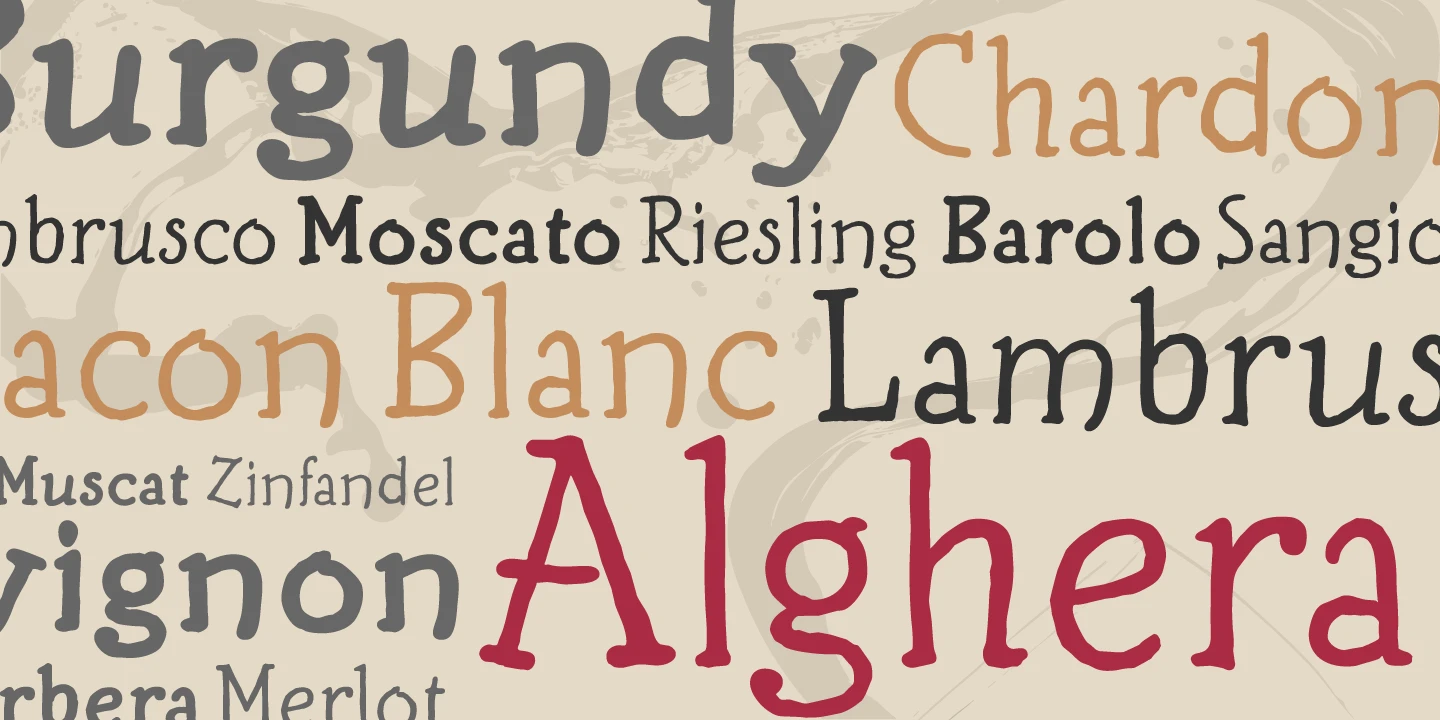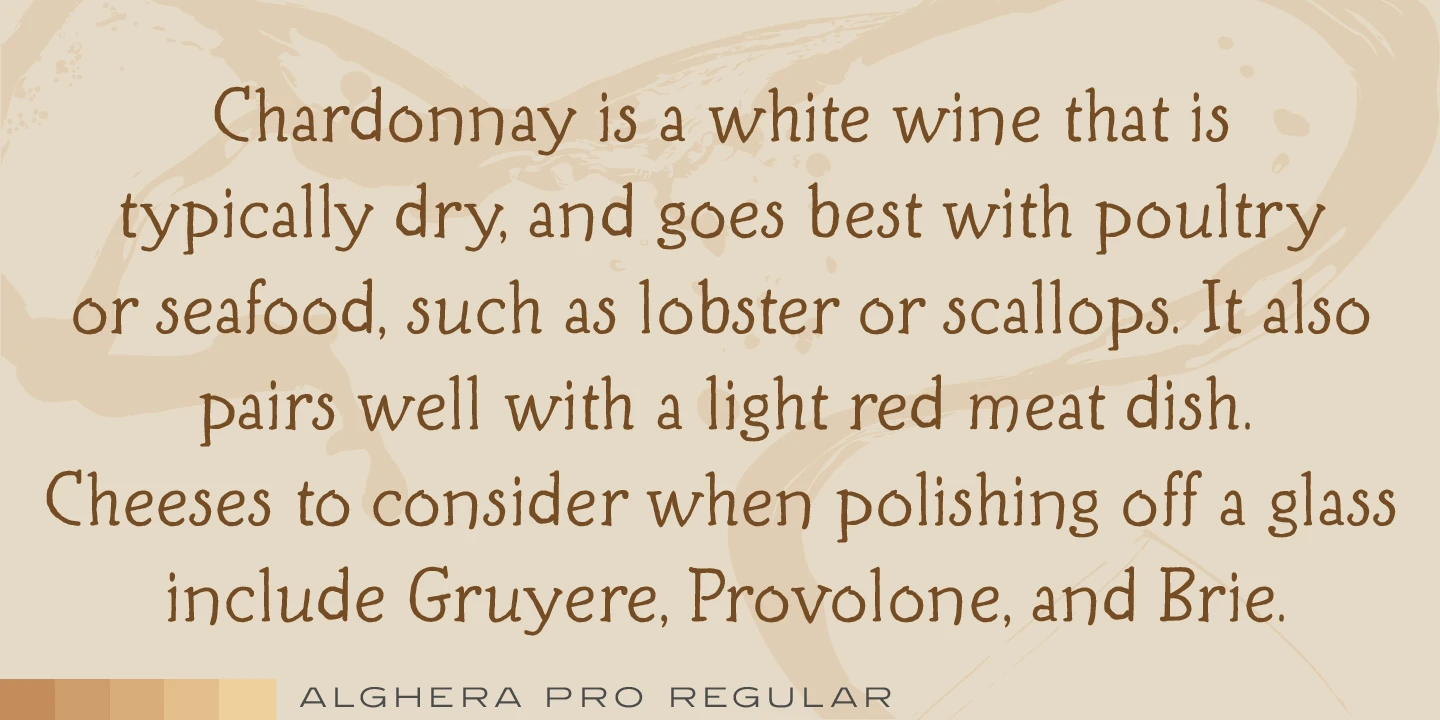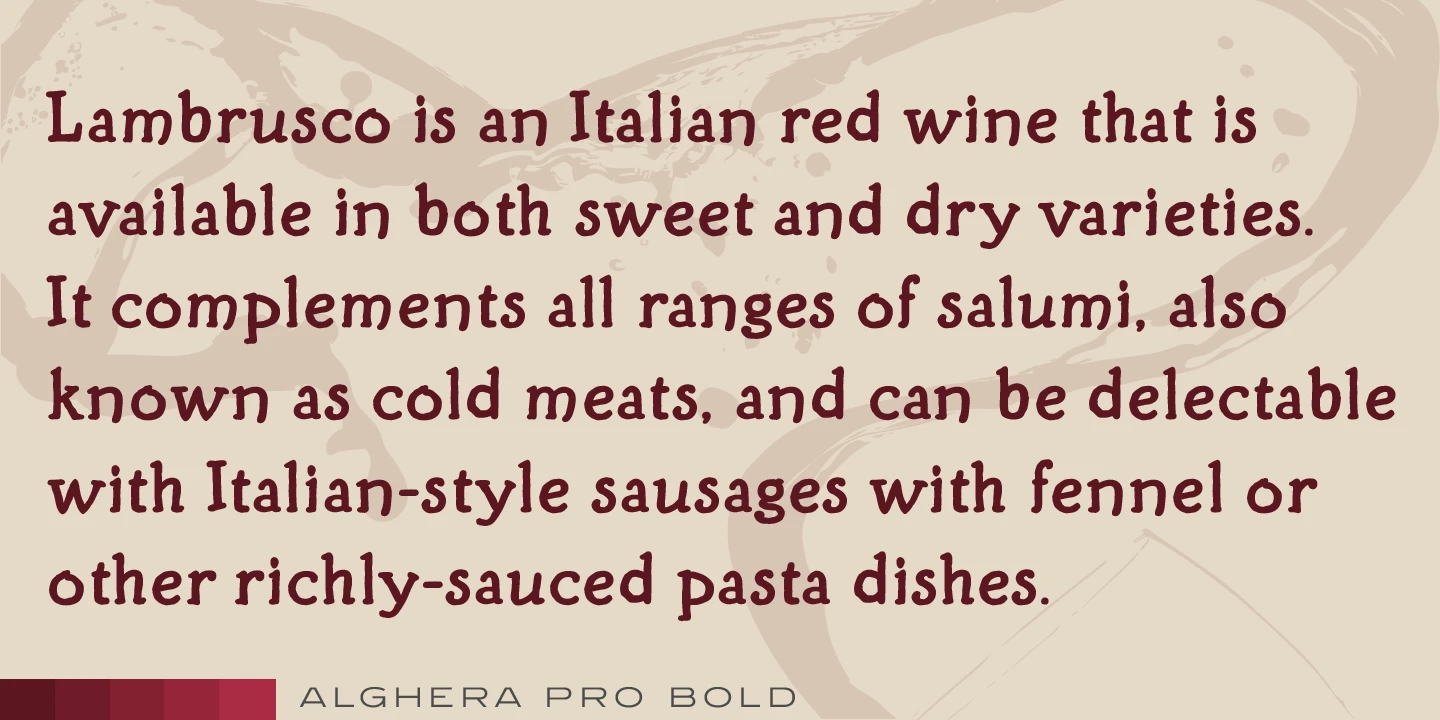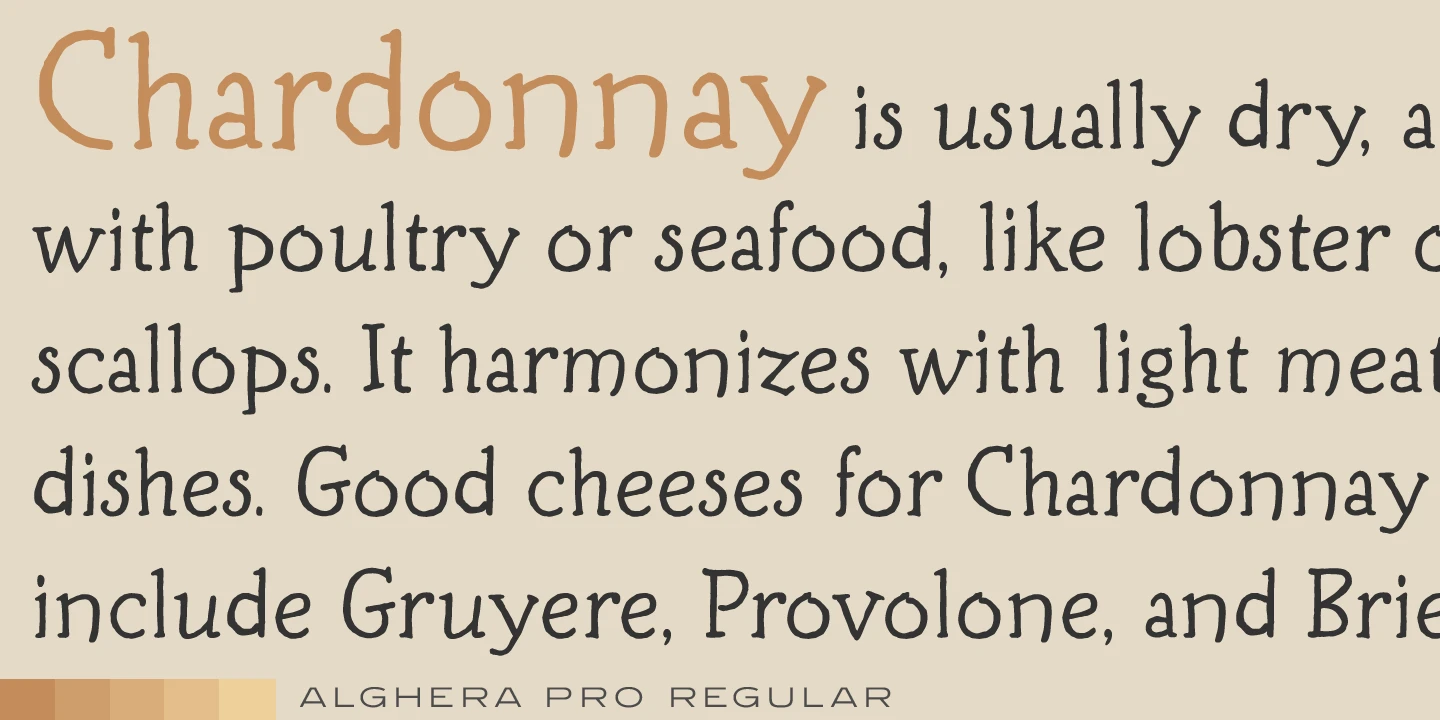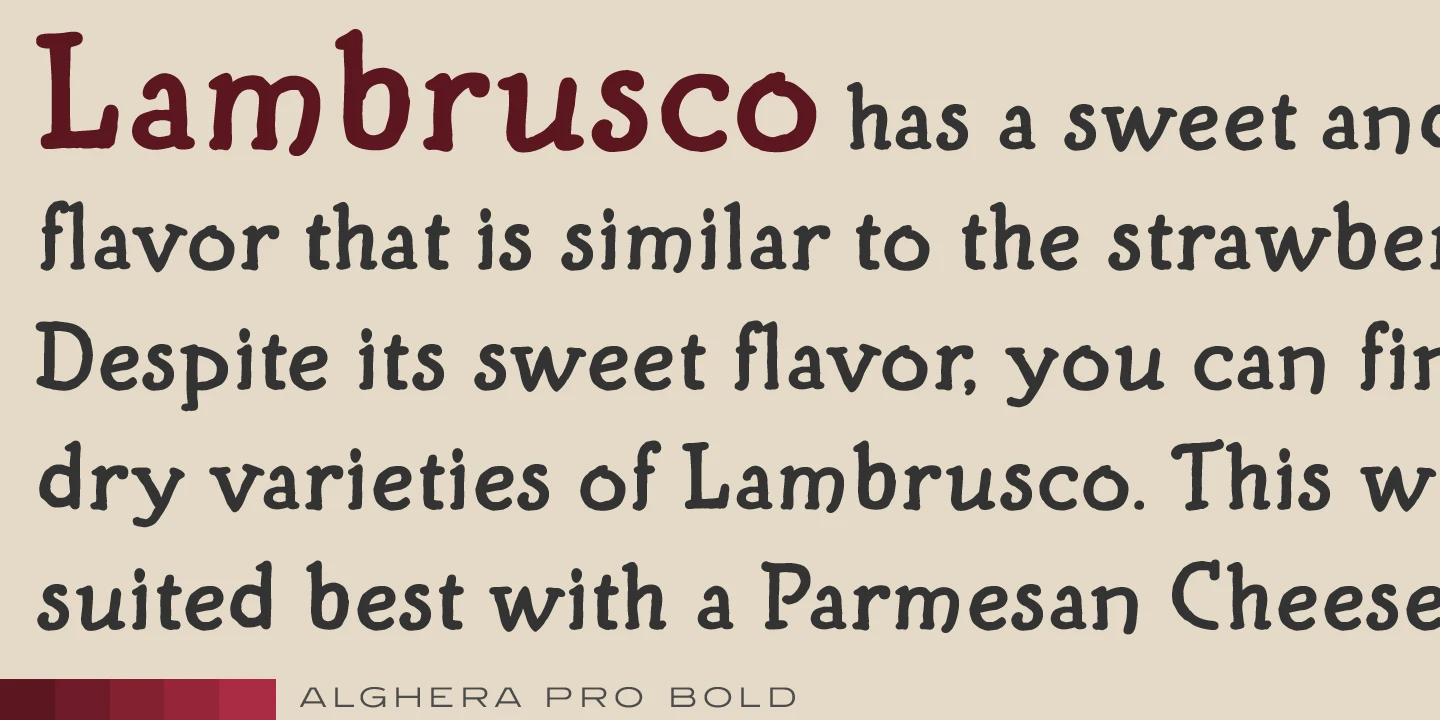
Alghera Font Family
Alghera is a casual script font family. It was designed by Pat Hickson (P&P Hickson) exclusively for the Red Rooster Collection, and produced by Steve Jackaman (ITF) in 1996. Jackaman revamped the family in 2017, and added wider language support to encompass Latin 1 and Central/Eastern European languages. Alghera has a hand-written, antique feel, and was inspired by an old label on a bottle of Portuguese wine.
OpenType Features
• Common Ligatures
• Fractions
• Ordinal Numerals
• Subscript
• Superscript